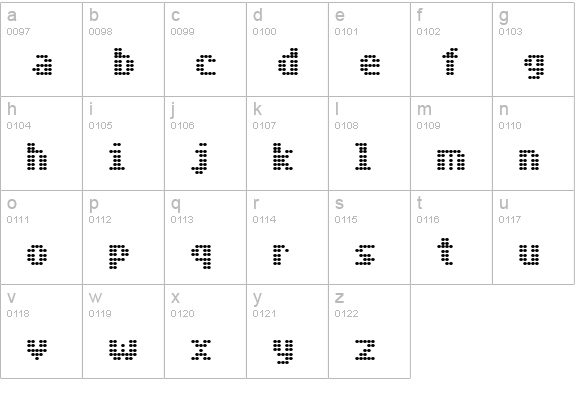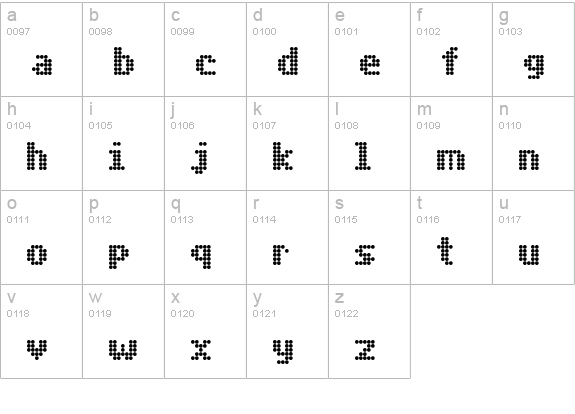
PFDigidot FiVe Font Details
PFDigidot FiVe font is a modern and sleek typeface that combines elements of digital precision with a touch of artistic flair. Its unique design features a series of interconnected dots that create a futuristic and eye-catching appearance. This font is perfect for projects that require a contemporary and high-tech aesthetic, such as digital displays, tech websites, and sci-fi themed designs. What makes PFDigidot FiVe font even more appealing is that it is available for free download at FontsMarket.com. This means that you can easily access this stylish typeface without any cost, making it a great choice for designers looking to add a modern and sophisticated touch to their work. Don't miss out on the opportunity to enhance your projects with the striking PFDigidot FiVe font today!